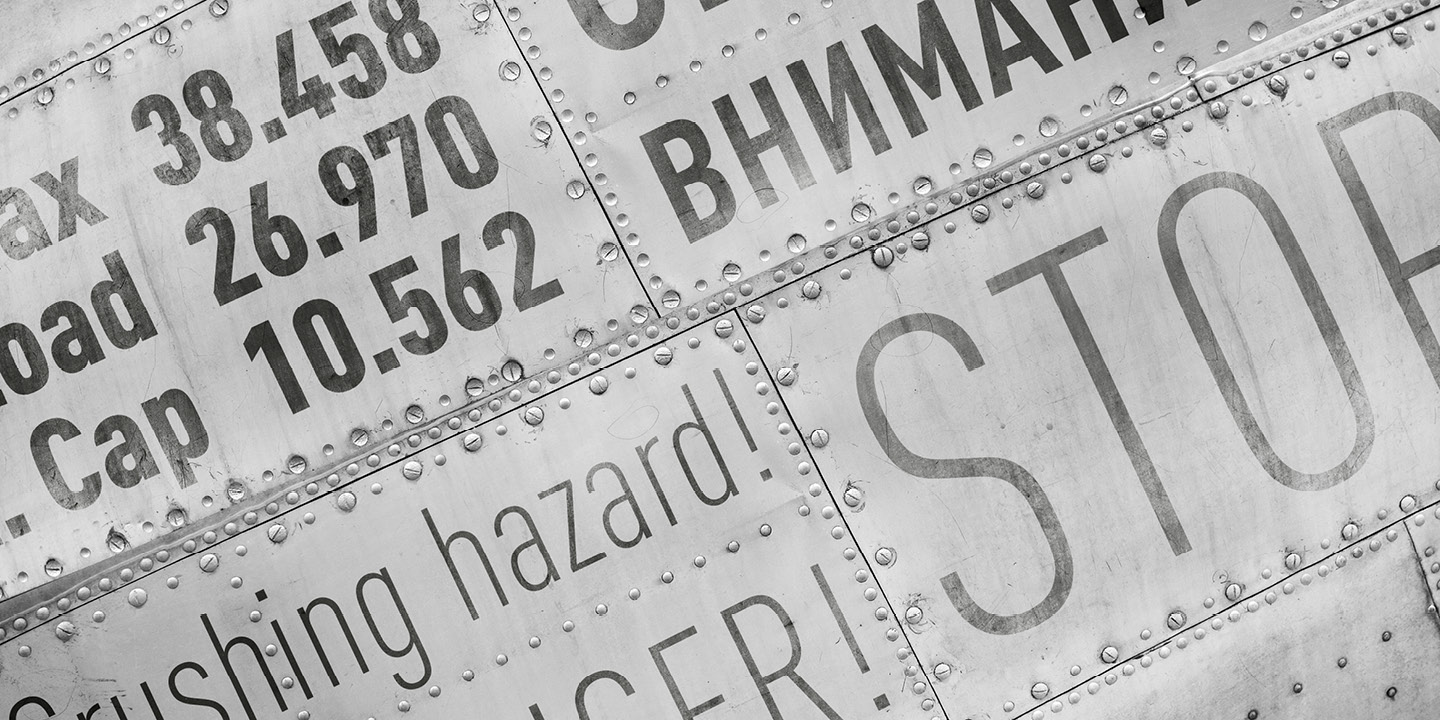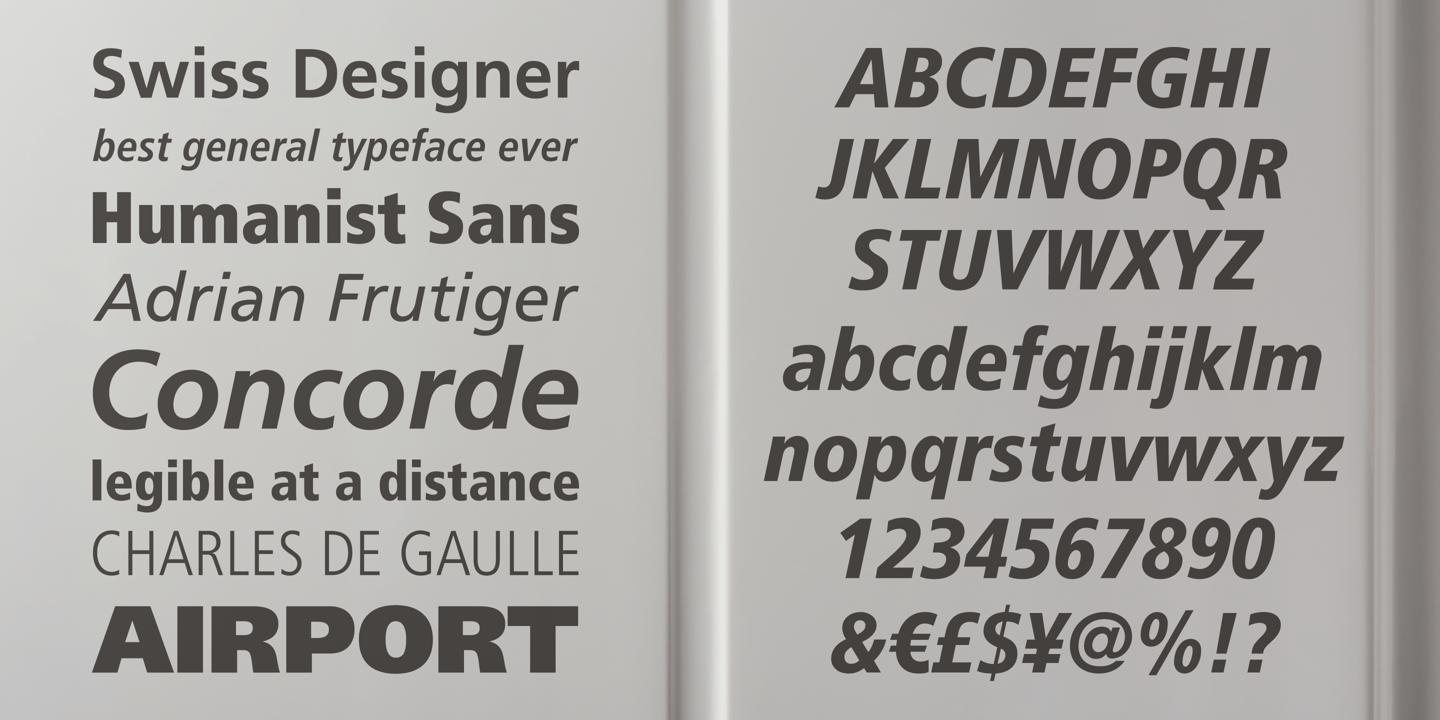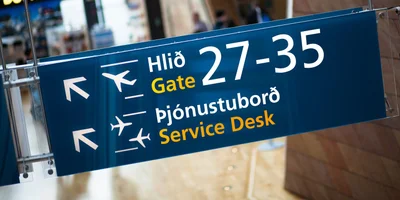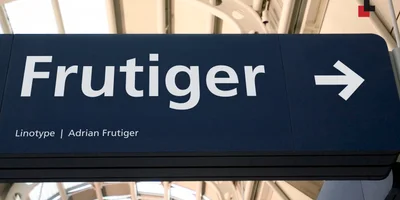
DIN vs Frutiger
DIN and Frutiger are both sans-serif typefaces sharing a readable foundation. Where DIN leans signage, tech, Frutiger brings humanist, warm. Compare which suits your Signage project.
Recommended: DIN
- signage, tech design character
- Suited for Technical and Automotive
Consider: Frutiger
- humanist, warm design character
- Suited for Wayfinding and Corporate